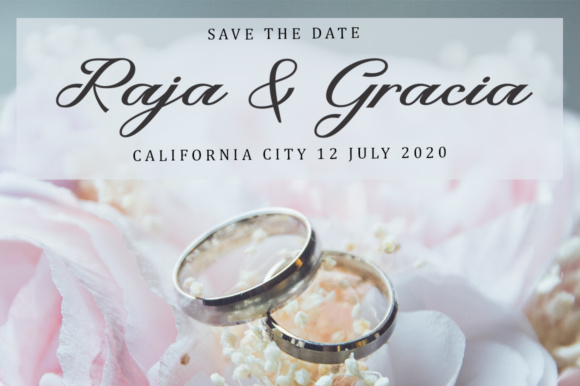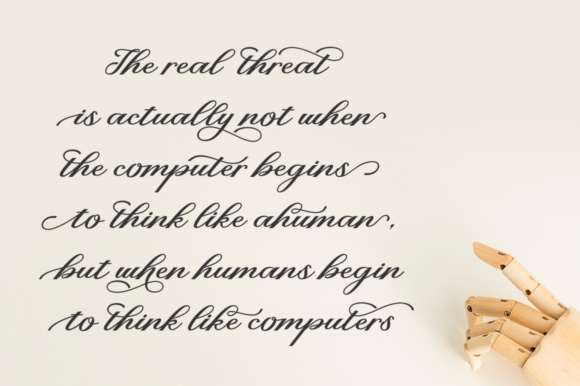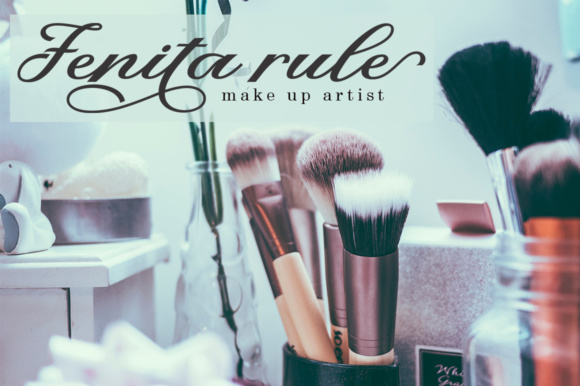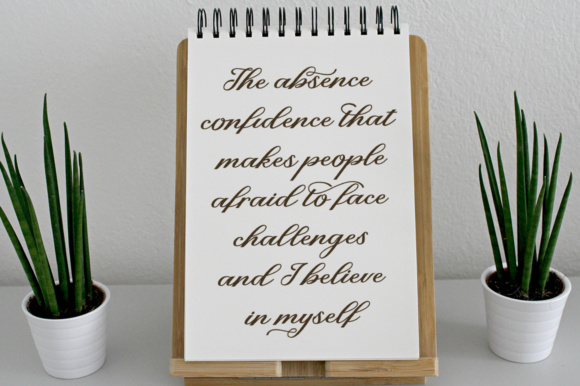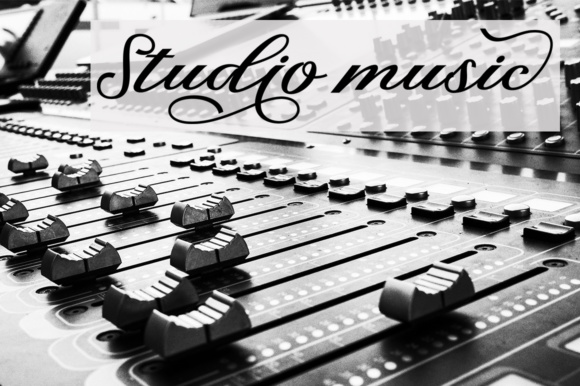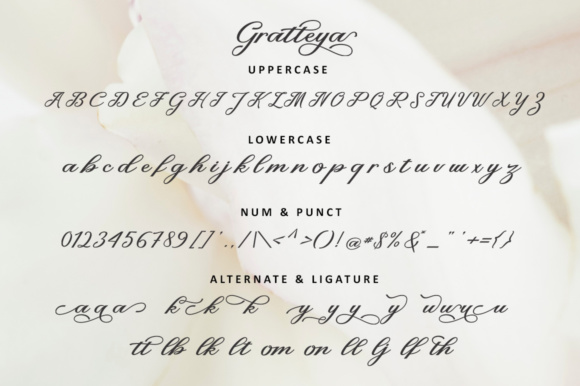
Gratteya Script Font: Elevate Your Designs with Elegance and Sophistication
Are you looking for a font that can add a touch of elegance and sophistication to your designs? Look no further than the Gratteya Script Font. This beautiful calligraphy font is perfect for designers and crafters who want to create stunning visual content that stands out from the crowd. In this article, we’ll explore the features and benefits of the Gratteya Script Font and show you how to make the most of this versatile font.
What is Gratteya Script Font?
The Gratteya Script Font is a sweet calligraphy font that boasts an elegant style with a dynamic baseline. Its unique and flowing design makes it perfect for a wide range of applications, from branding and logos to greeting cards, weddings, quotes, and more. Whether you’re a professional designer or a crafty DIY enthusiast, this font is easy to use and can help you create beautiful and eye-catching designs.
Key Features of Gratteya Script Font
- Elegant Style: The Gratteya Script Font has a sophisticated and elegant style that’s perfect for designs that require a touch of luxury and refinement.
- Dynamic Baseline: The font’s dynamic baseline adds a unique and creative touch to your designs, setting them apart from the rest.
- Versatile: This font can be used for a wide range of applications, from digital designs to print materials.
Benefits of Using Gratteya Script Font
So, why should you choose the Gratteya Script Font for your designs? Here are just a few benefits of using this amazing font:
- Adds Elegance and Sophistication: The Gratteya Script Font can instantly elevate your designs and add a touch of elegance and sophistication.
- Perfect for Branding and Logos: The font’s unique and memorable design makes it perfect for branding and logos that need to stand out.
- Ideal for Creative Projects: Whether you’re working on a wedding invitation, greeting card, or quote, the Gratteya Script Font is the perfect choice.
Tips and Tricks for Using Gratteya Script Font
To get the most out of the Gratteya Script Font, here are some tips and tricks to keep in mind:
- Experiment with Different Sizes and Colors: Play around with different font sizes and colors to find the perfect combination for your design.
- Pair with Other Fonts: The Gratteya Script Font pairs well with other fonts, so don’t be afraid to experiment with different font combinations.
- Use for Headings and Titles: The font’s elegant style makes it perfect for headings and titles that need to make a statement.
- Add a Personal Touch: Use the Gratteya Script Font to add a personal touch to your designs and make them more unique.
In conclusion, the Gratteya Script Font is a beautiful and versatile font that’s perfect for designers and crafters who want to create stunning visual content. With its elegant style, dynamic baseline, and ease of use, this font is ideal for a wide range of applications. Whether you’re working on a branding project, wedding invitation, or greeting card, the Gratteya Script Font is sure to elevate your designs and add a touch of sophistication and elegance.